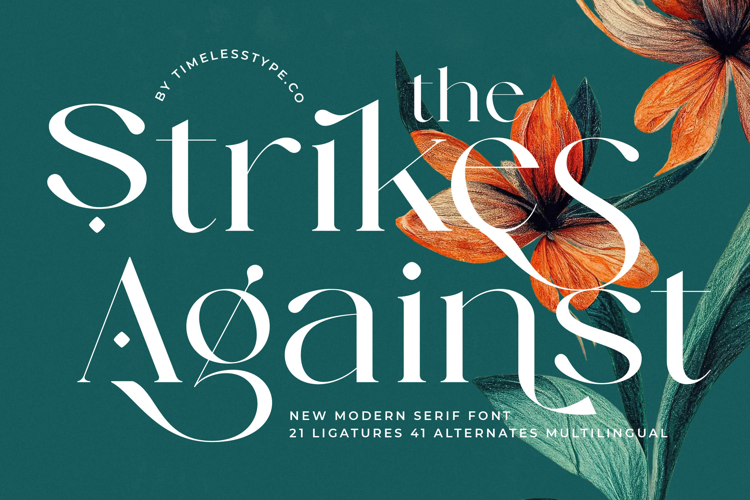
against font
against font is an unique and very elegant font for brand and logo design. It's a elegant and classy serif typeface – This font is both modern and nostalgic and works great for logos, magazine, social media. Already matched up and ready to be used together for your next design! For those of you who are needing a touch of elegant, stylish, classy, chic and modernity for your designs, this font was created for you!
To make it look more unique, here we prepared some ligatures:ab ae ag ai aj am an ao ap ar at ce ch cm cn co ib ih ik il in im ir it jb jh jk jl jn jm jr jt et ot ss so st ve vi vj we wi wj
Include Fancy Style on Every Uppercase and Some Lowercase
against is also included full set of:- Uppercase and Lowercase letters
- Special Ligatures
- Numerals & Punctuation
- Accented characters